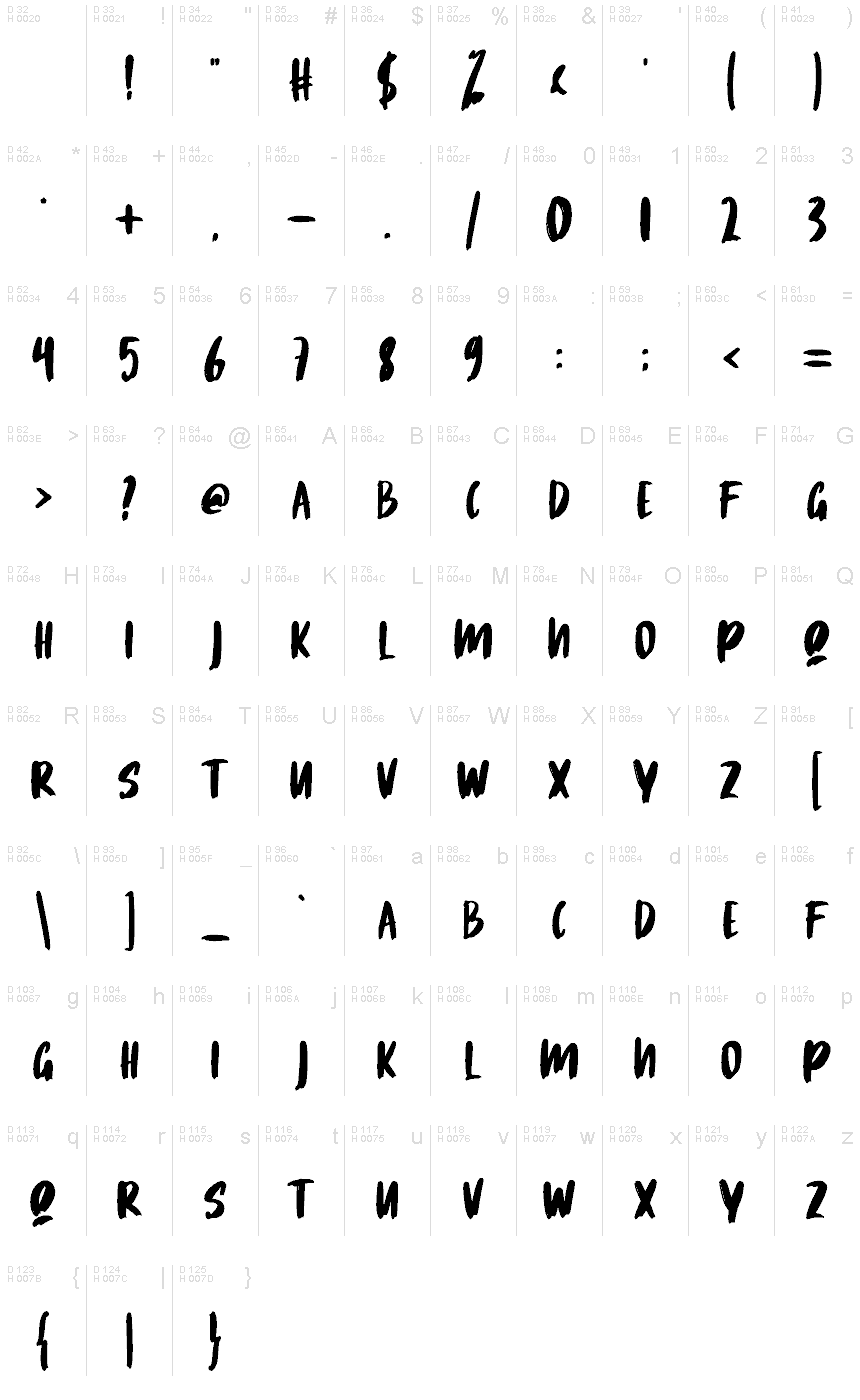
Sugrow
Sugrow font by Skiiller Studio combines the raw, urban-inspired energy of a grungy brush with a condensed design. With its bold strokes and expressive style, the free font boasts a modern, artistic flair reminiscent of vibrant street art and graffiti. Sugrow’s eye-catching appearance captures attention and delivers your ideas with an almost defiant tone that’s impossible to ignore.
Let Sugrow's unconventional aesthetics brand your e-books or make advertisements for coffee shops stand out. Create posters and flyers for schools or concert tickets which embody whatever music genre you prefer. Be fearless in your catalog designs, magazines covers, calendars, notebooks covers, producing one fascinating piece after another.